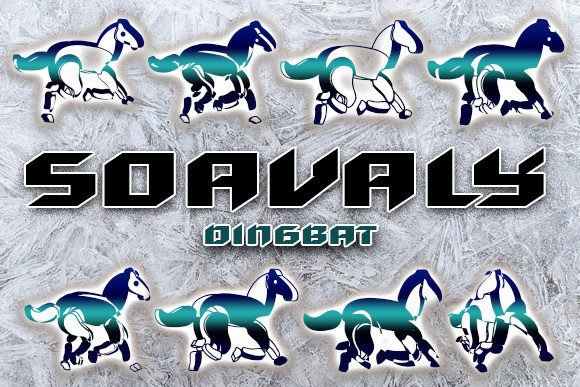
Embrace the allure of Soavaly, a dingbat font family crafted to unleash creativity and make your designs shine. This remarkable collection of dingbats is an artist's playground, allowing you to add a touch of whimsy and personality to your projects.
Unleash your imagination and transform ordinary designs into captivating masterpieces. Soavaly is your key to creating designs that resonate with your audience, leaving a lasting impression that lingers in their minds.
With Soavaly, you can:
* **Captivate Your Audience:** Draw attention with distinctive dingbats that add visual intrigue to your designs, capturing the eyes of your target audience.
* **Craft Unforgettable Designs:** Create designs that leave an indelible mark, using Soavaly to add a touch of uniqueness and charm to your projects.
* **Express Yourself Boldly:** Unleash your creativity and let your individuality shine through. Soavaly gives you the freedom to express yourself in a way that is both captivating and authentic.
* **Stand Out from the Crowd:** Break free from the mundane and elevate your designs to new heights. Soavaly helps you create designs that stand out from the crowd and leave a lasting impression.
Soavaly is perfect for:
* **Graphic Designers:** Add a touch of magic to your posters, flyers, and t-shirts with Soavaly's enchanting dingbats.
* **Web Designers:** Create websites that come alive with Soavaly's vibrant and engaging designs.
* **Social Media Marketers:** Engage your audience with visually captivating posts and graphics using Soavaly's unique dingbats.
* **Business Owners:** Elevate your brand identity with Soavaly's distinctive and memorable dingbats.
Experience the Soavaly difference today and let your creativity soar. Transform your designs into captivating masterpieces that leave a lasting impression.